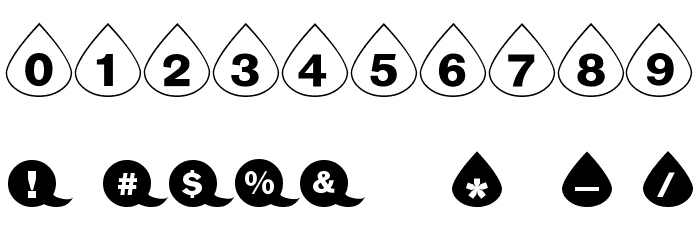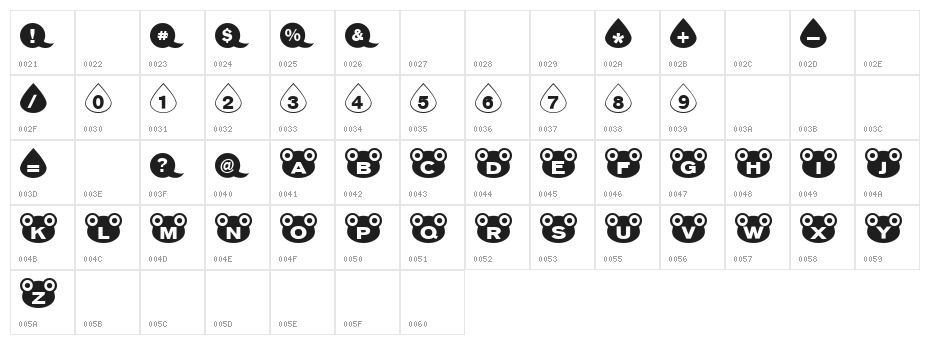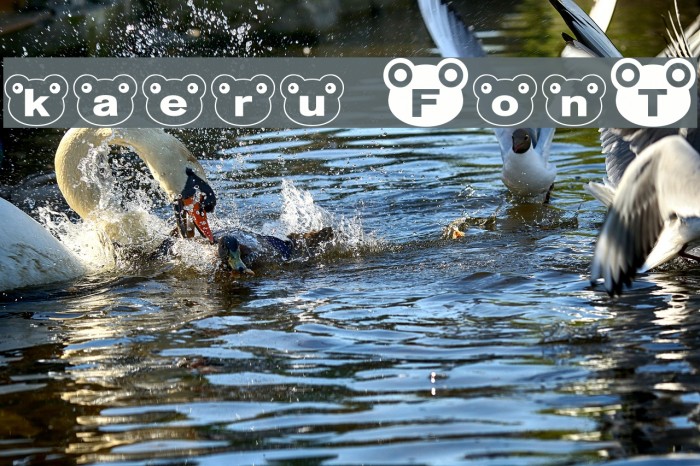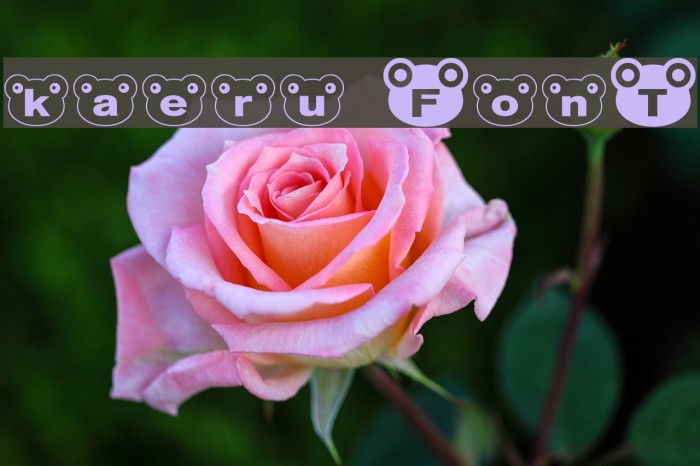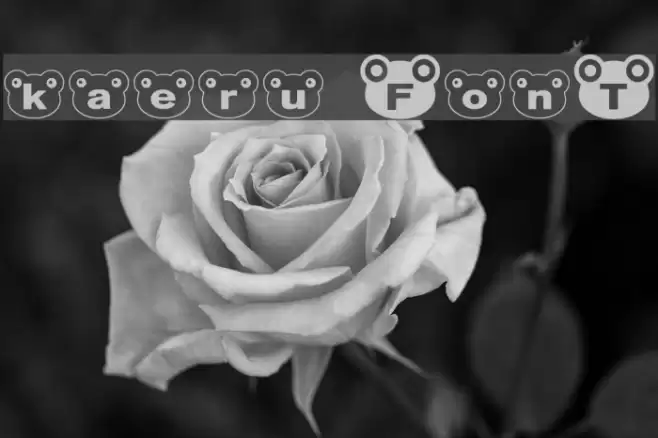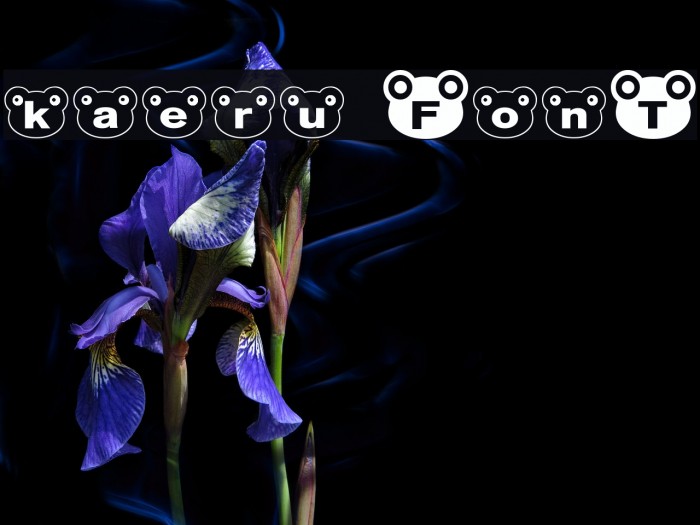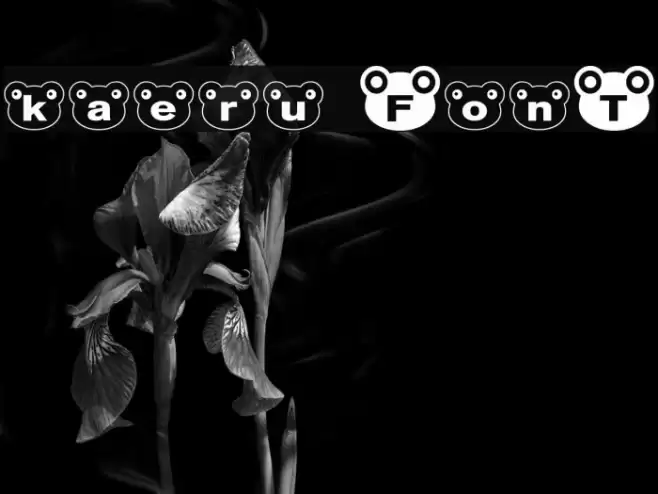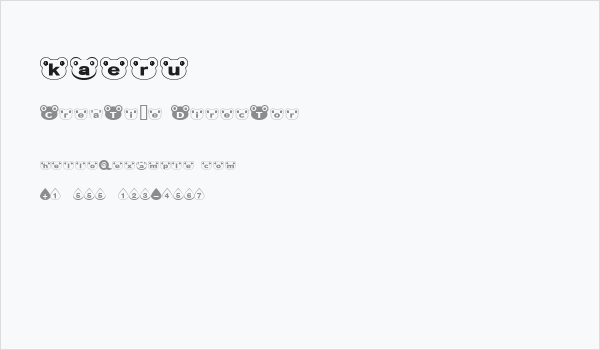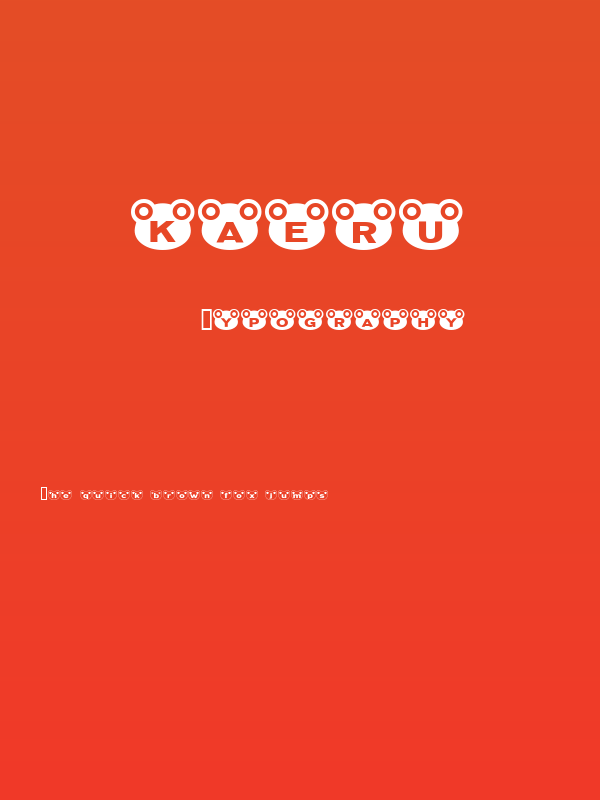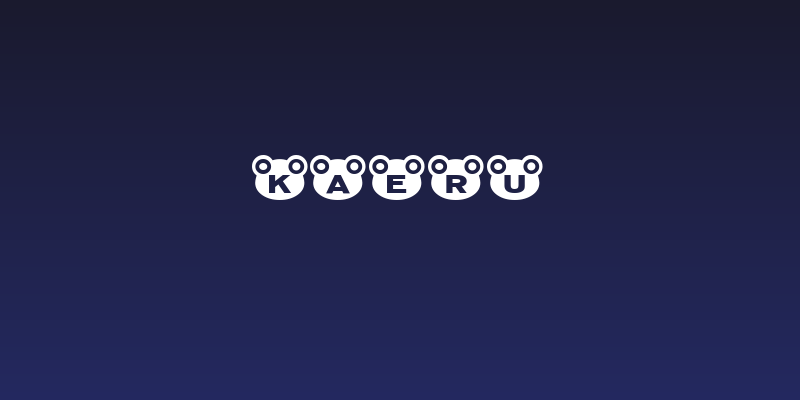
kaeru Font
kaeru Description
This playful and whimsical font features characters enclosed within cartoonish frog faces, creating a unique and eye-catching design. The uppercase letters are bold and filled, while the lowercase letters maintain a lighter, outlined style. Numbers are encased in teardrop shapes, adding to the font's quirky charm. Special characters are also creatively integrated into the frog and teardrop motifs. The font's distinct style makes it ideal for projects that require a fun and engaging visual element.
| Proposed Projects | Ideal for children's books, playful branding, party invitations, and educational materials. |